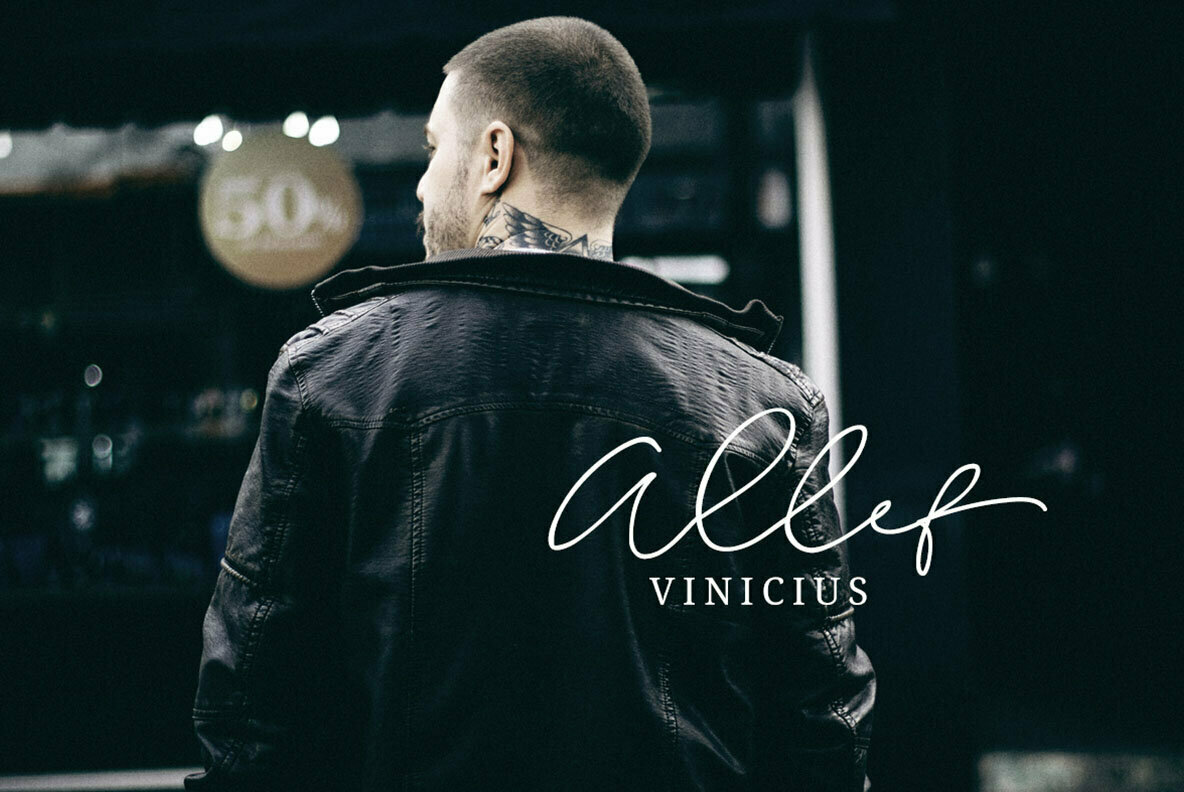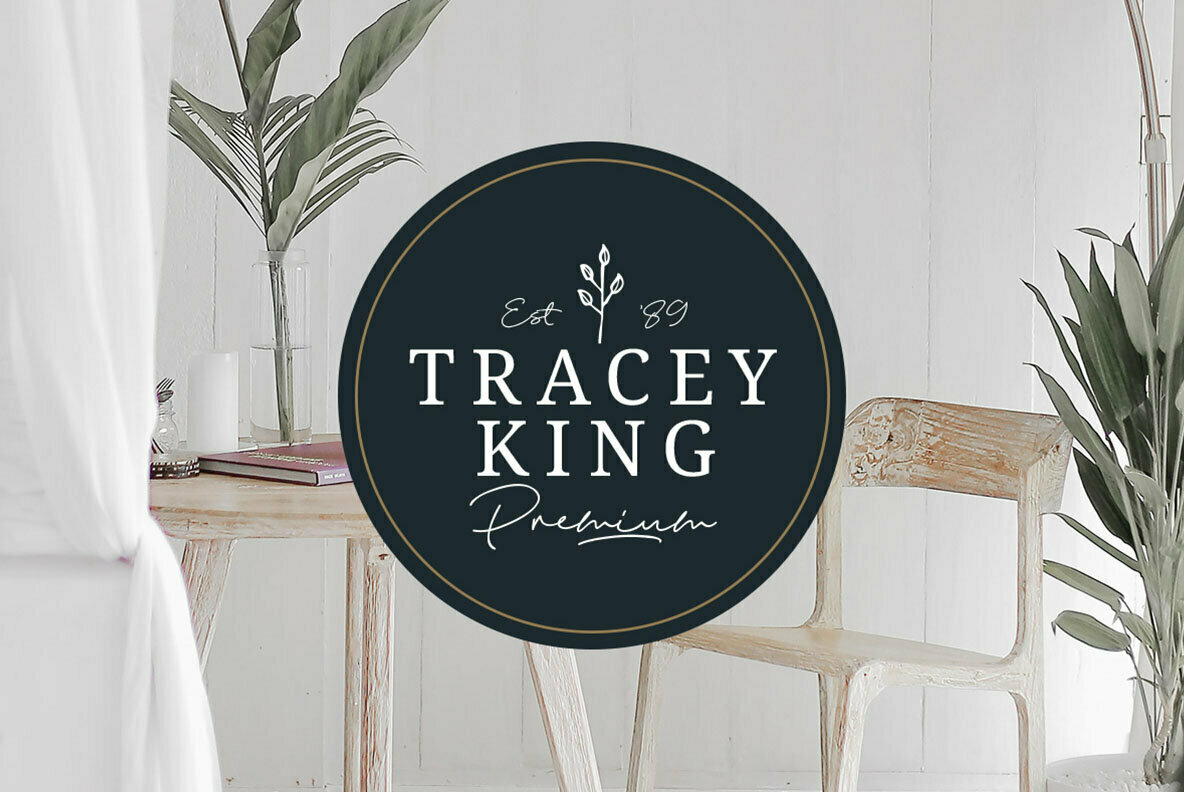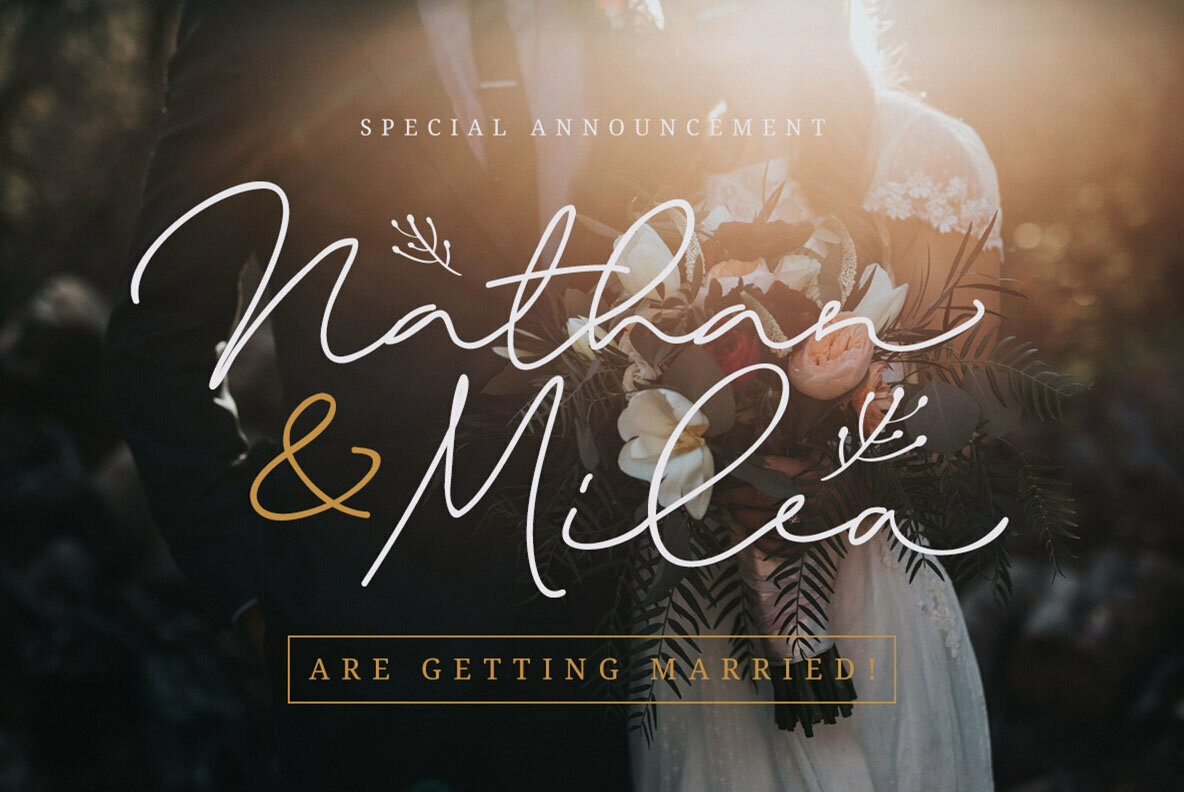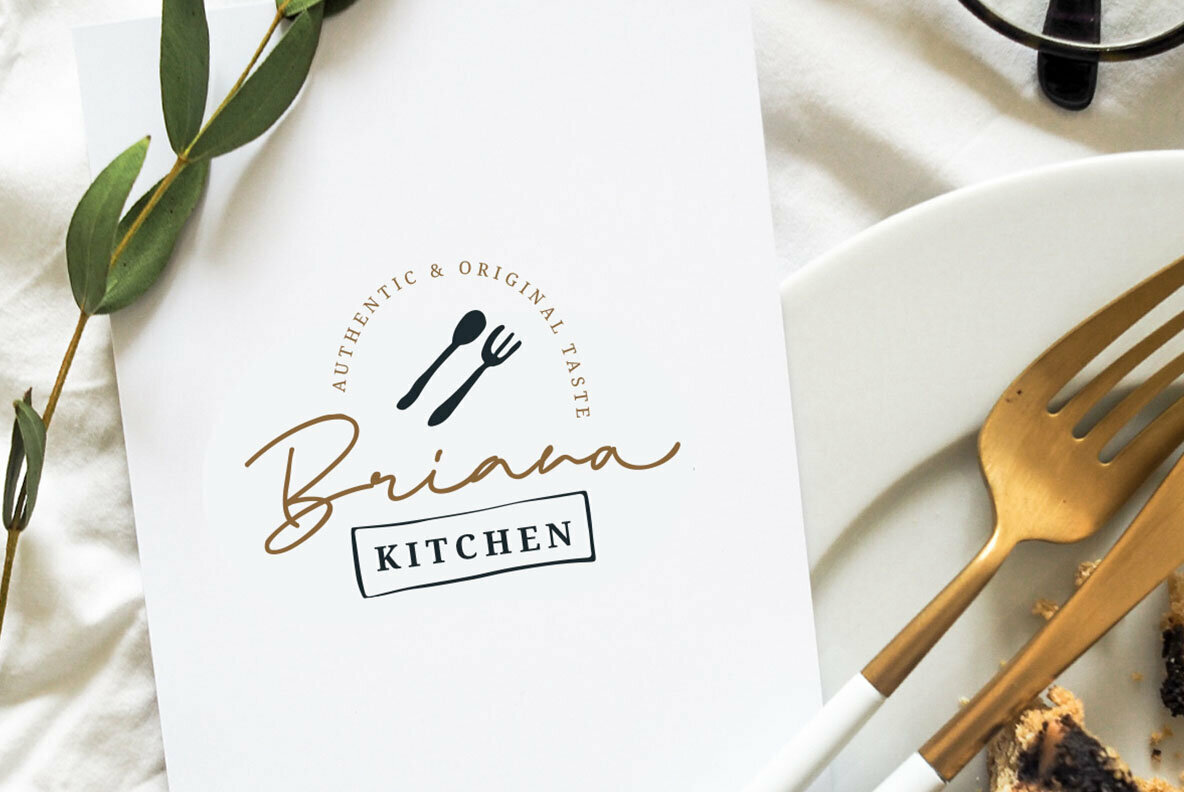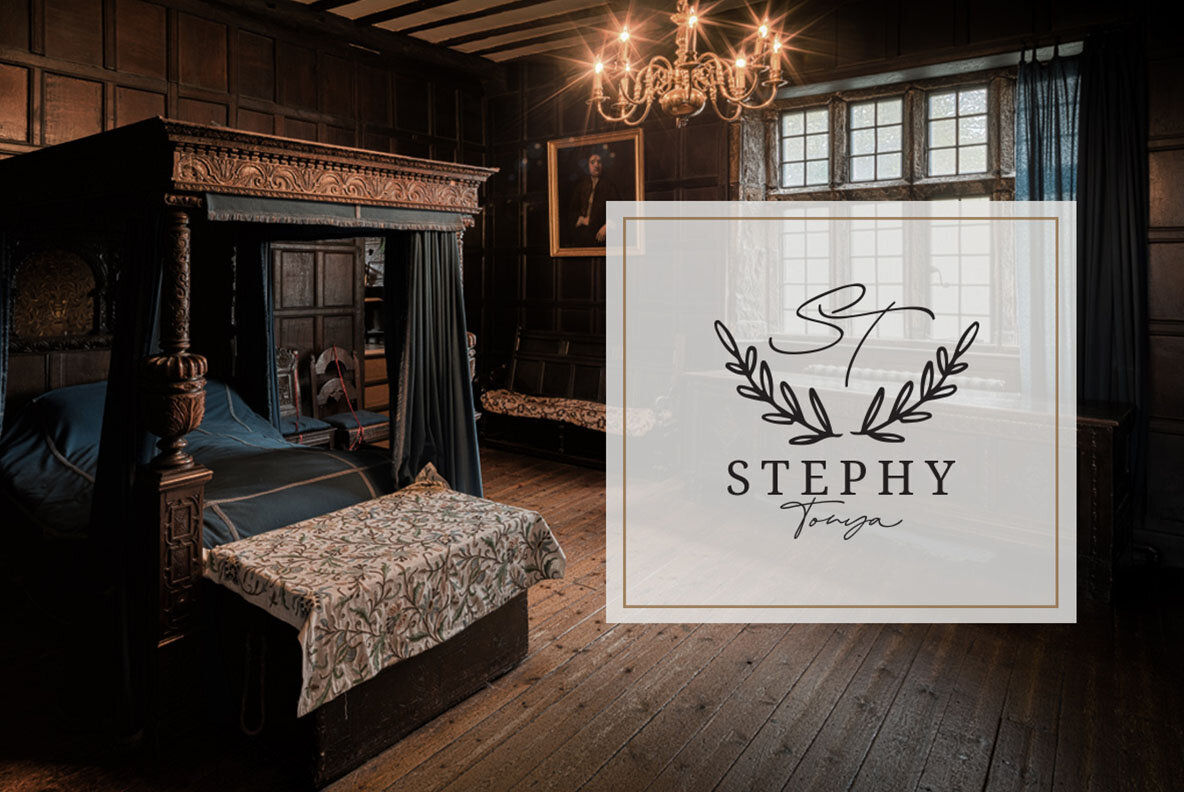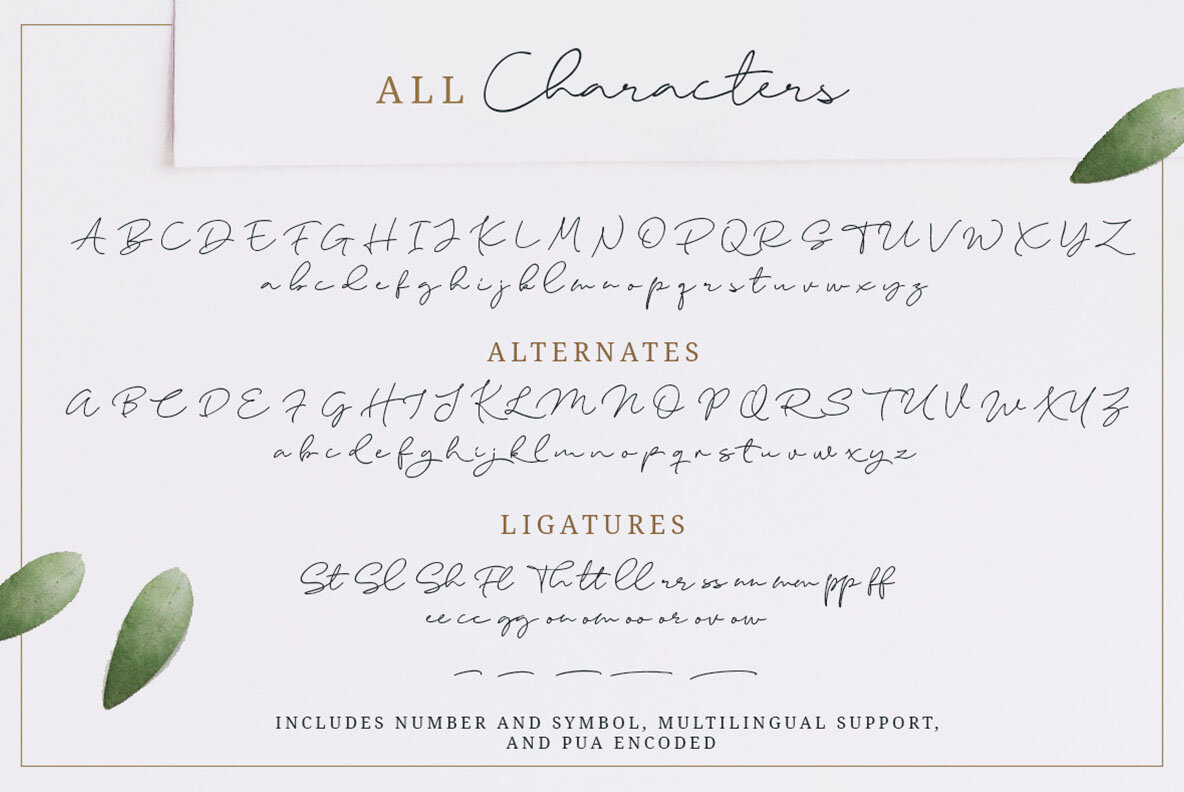
Elaine Hanks Font
Elaine Hanks provides a chic touch to your projects with its stylish signature aesthetic. This font includes lowercase and uppercase characters, symbols, and comprehensive multi-language support. Designed to enhance your branding efforts, it features numerous ligatures and an accompanying doodle font, perfect for logos, wedding invitations, and expressive quotes.Elaine Hanks: Fashionable Signature Font with Doodles
This signature font brings sophistication and artistry to fashion design, branding, and more.